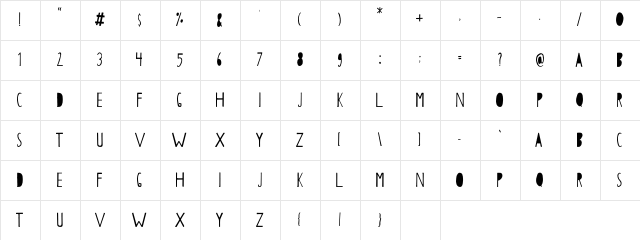
Papercutting Regular
Designer: Ahsan
Papercutting Family
Papercutting Regular
Design Context for Papercutting
Papercutting is a composed and adaptable typeface that performs quietly and consistently across a wide range of design contexts.